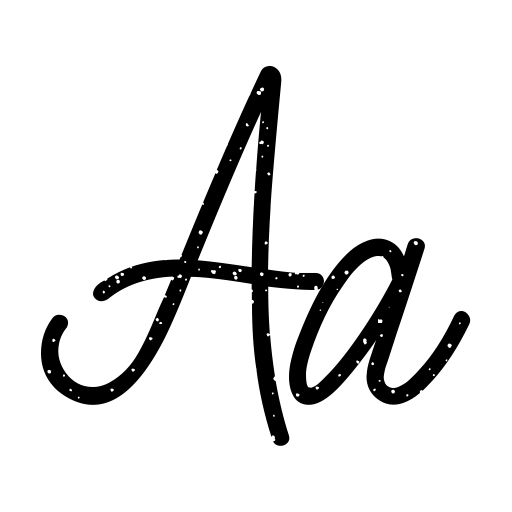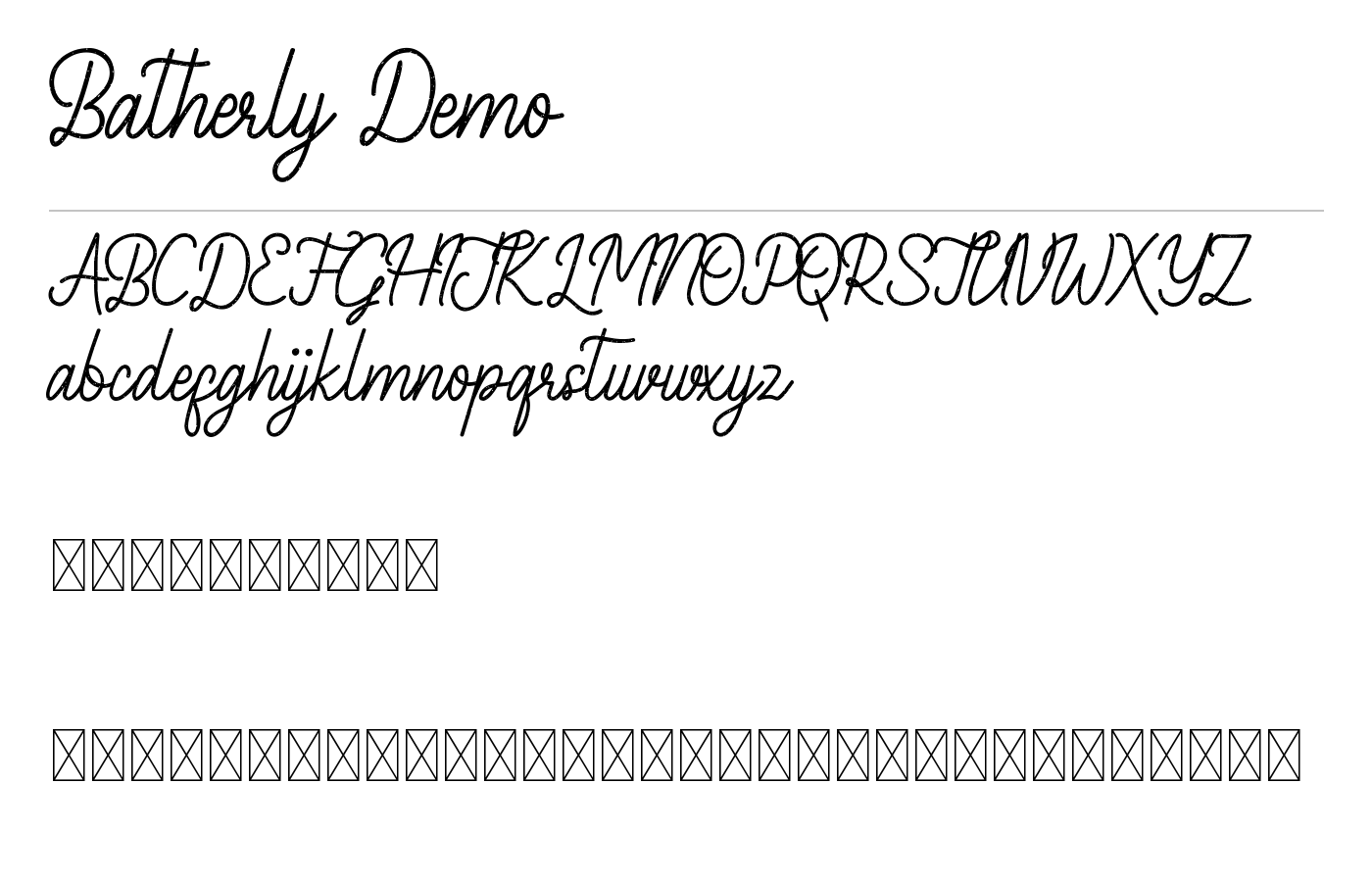
Batherly Demo is a delicate script font that mimics elegant handwritten cursive with smooth, flowing lines and a slender, consistent weight. Its refined style lends a personal, sophisticated touch, making it perfect for invitations, branding, and any design needing a graceful, intimate feel. This font works beautifully in projects where a handwritten charm and subtle elegance are desired.
Batherly Demo Font
About Batherly Demo Font
| Font family | Batherly Demo Font |